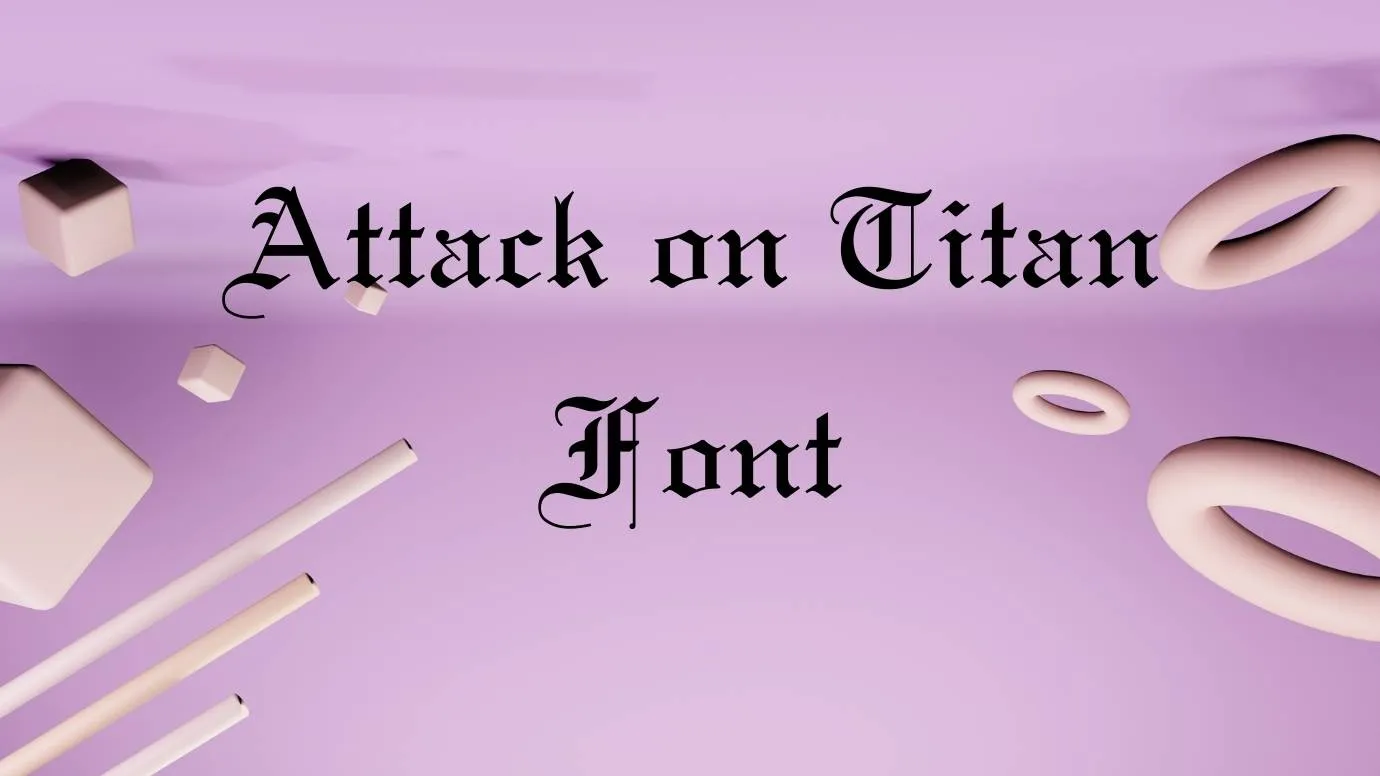
Attack on Titan Font Family that belongs to the logo category. This font family was designed by Omega Force. This stunning font family was released in the year 2016 and got popularity.
This awesome font family was designed on the base of a famous video game. This typeface was used for the logo and development of the game. Its unique swashes make it more classic. For more features, you will have to use its similar olde english font that has the same characters.